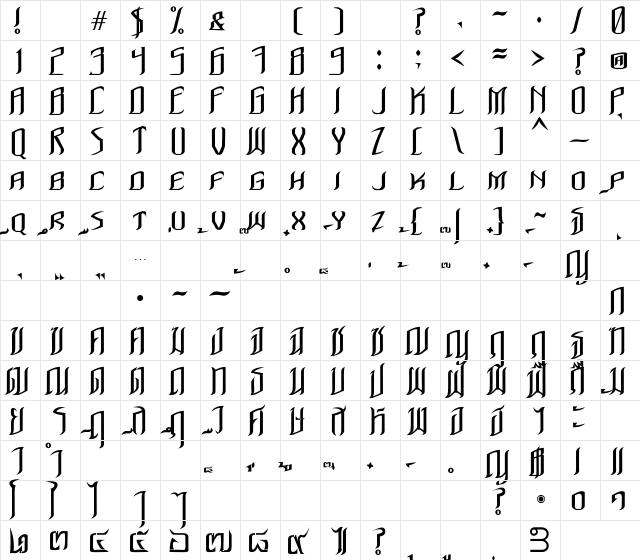
NP NaipolTemplate with OTF Regular
Design Context for NP NaipolTemplate with OTF Typeface
NP NaipolTemplate with OTF is a composed and adaptable typeface that performs quietly and consistently across a wide range of design contexts.